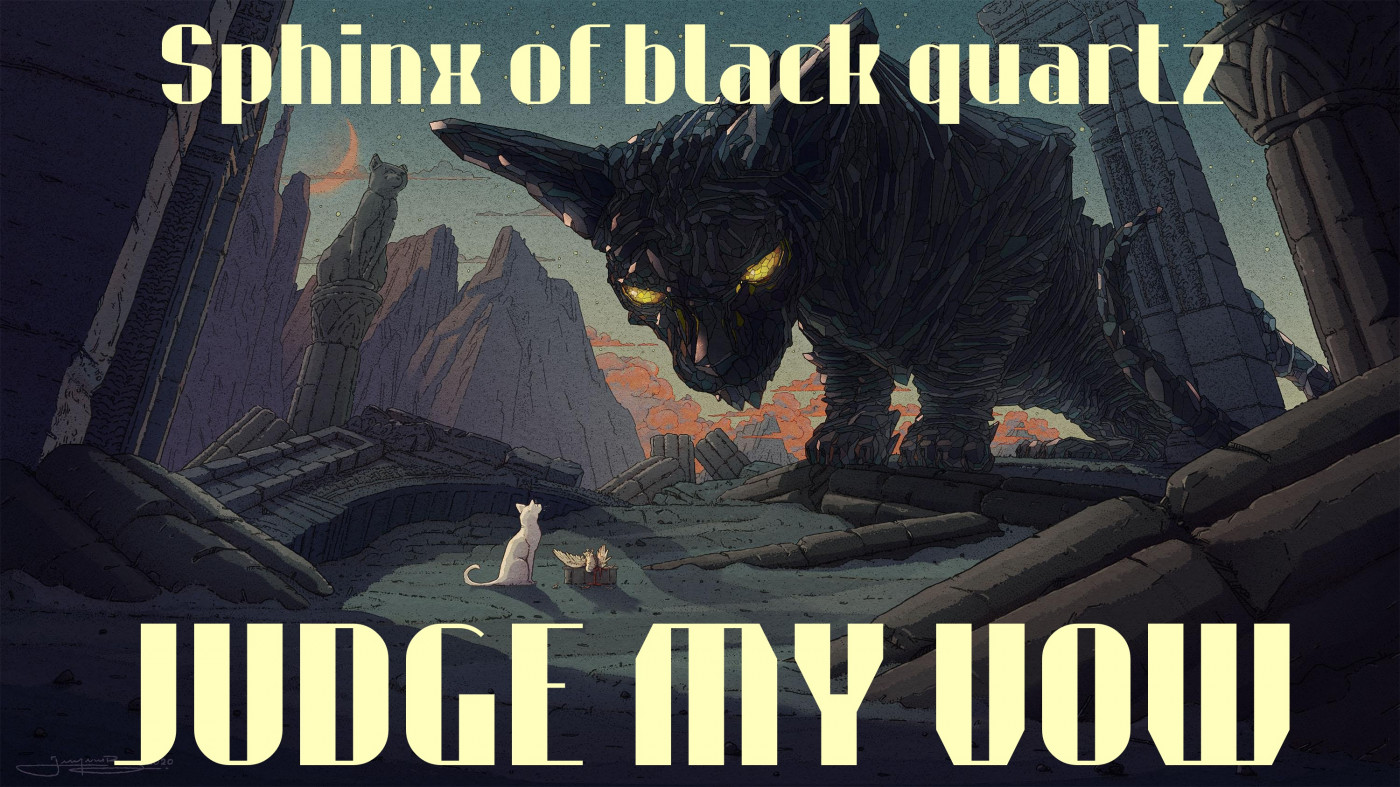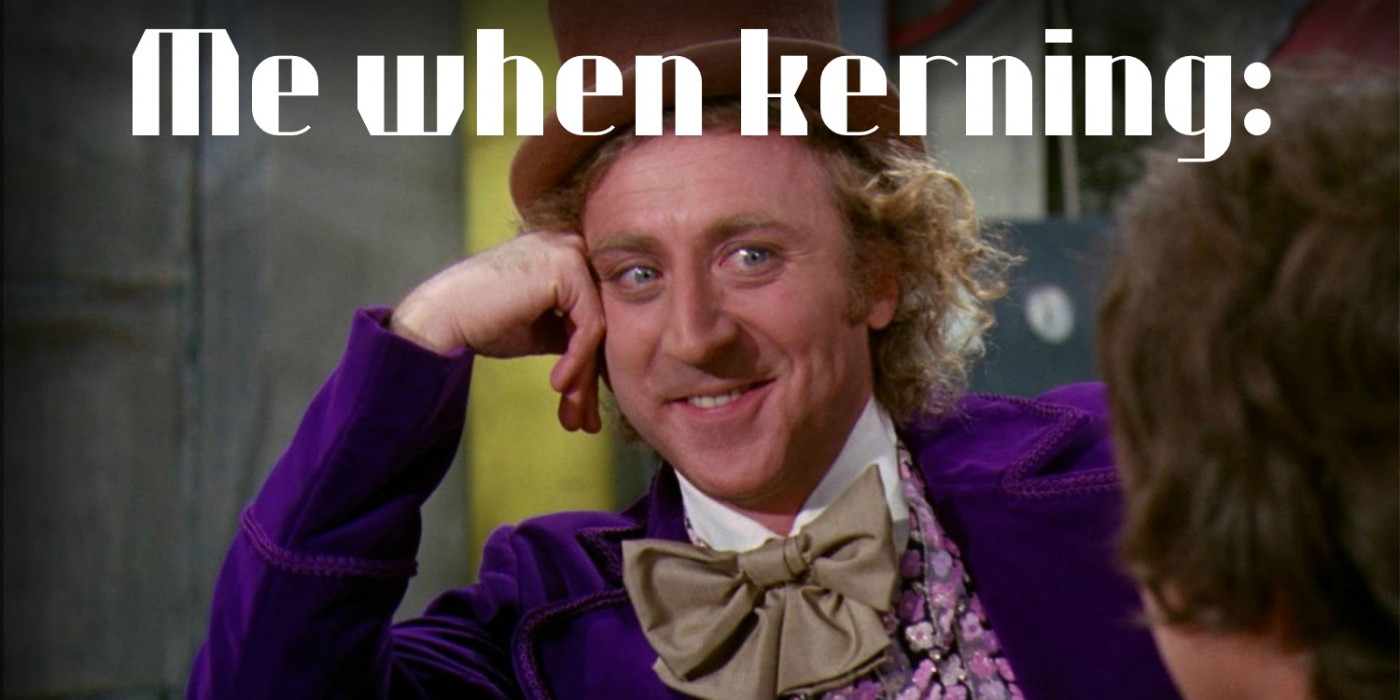
If Impact were art deco... Perfect for logos and memes, this font is both formal and informal.
For the letters ĢĶĻŅŖ and their lowercases, the comma form is prefered for Latvian.
@TypoMan Foundry It's bold and attention grabbing, all the similar letterforms are different, and the accents are large enough to tell apart even from afar
Patch 1.1: Edited Latvian diacrtitics and added more chars in Latin Extended-B. Cyrillic coming soon!
Added Cyrillic (Russian)
one does not simply kern every glyph
Characters from two different scripts shouldn't be kerned together anyways as it doesn't work correctly very well (not consistant across software)